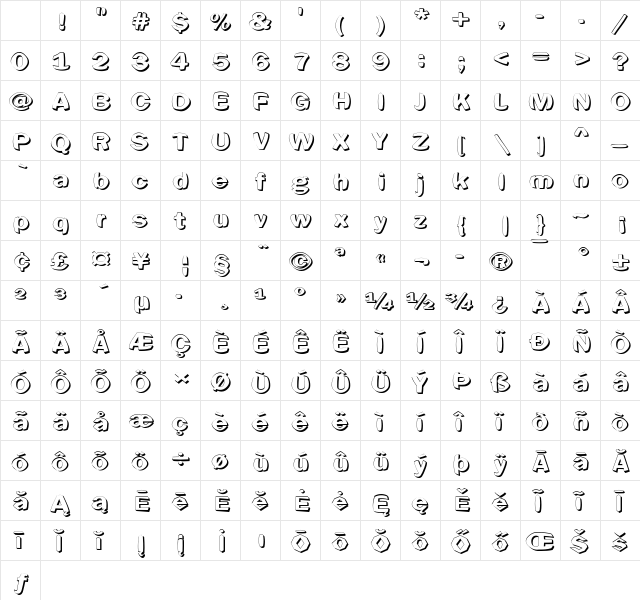
Clearblock circular - 3DFX Regular Free Font
Clearblock circular - 3DFX Regular
Designer: George Herbert Hirst
Design Context for Clearblock circular - 3DFX
Clearblock circular - 3DFX is a composed and adaptable typeface that performs quietly and consistently across a wide range of design contexts.